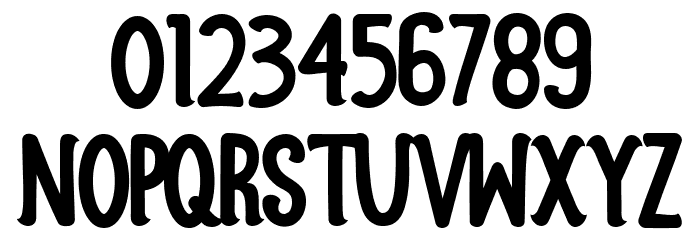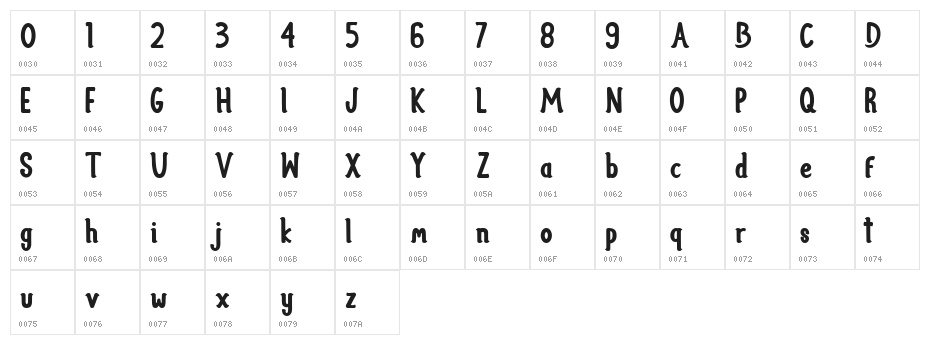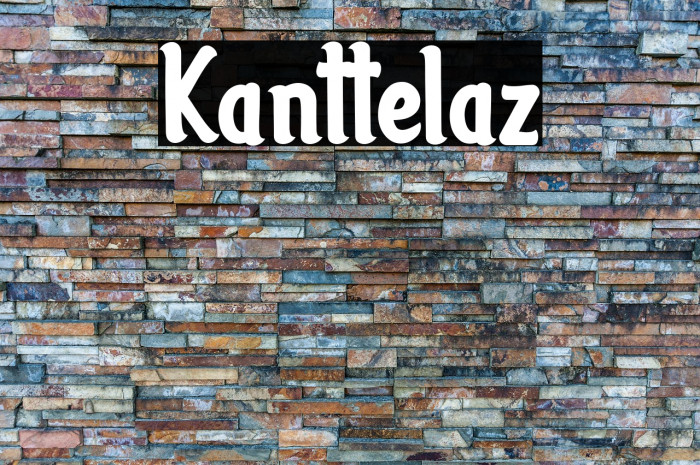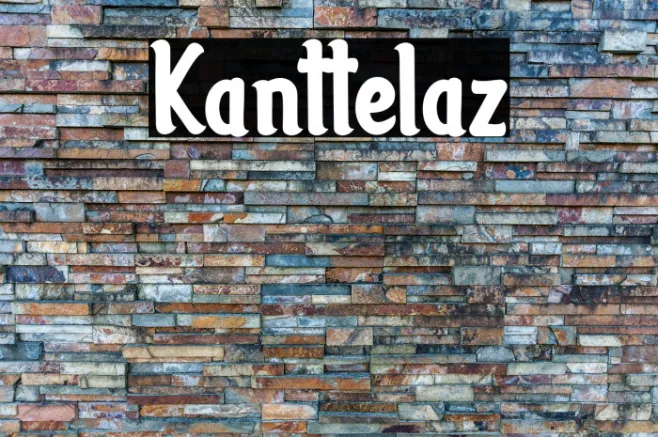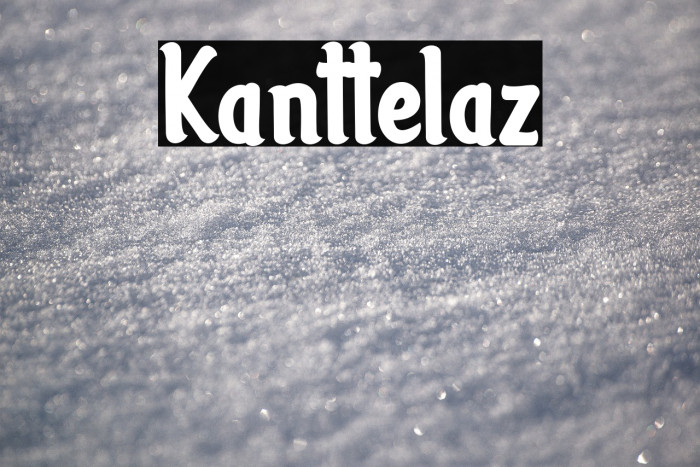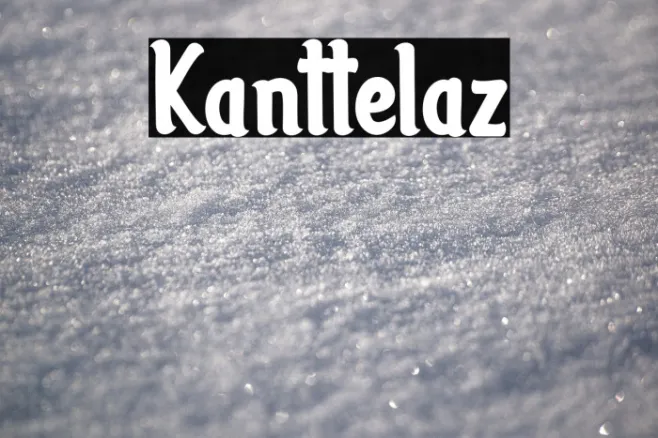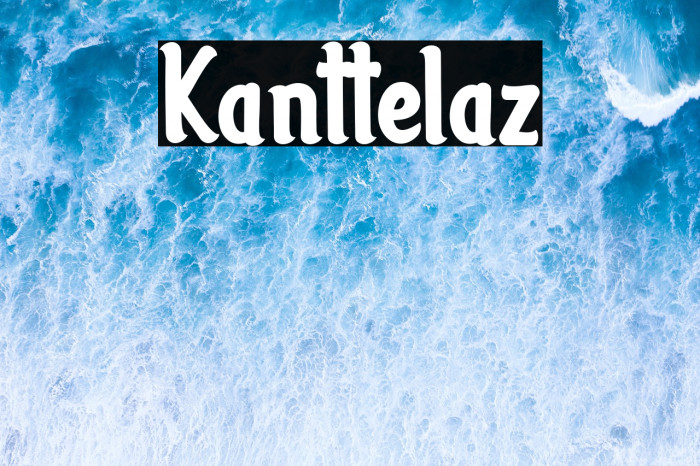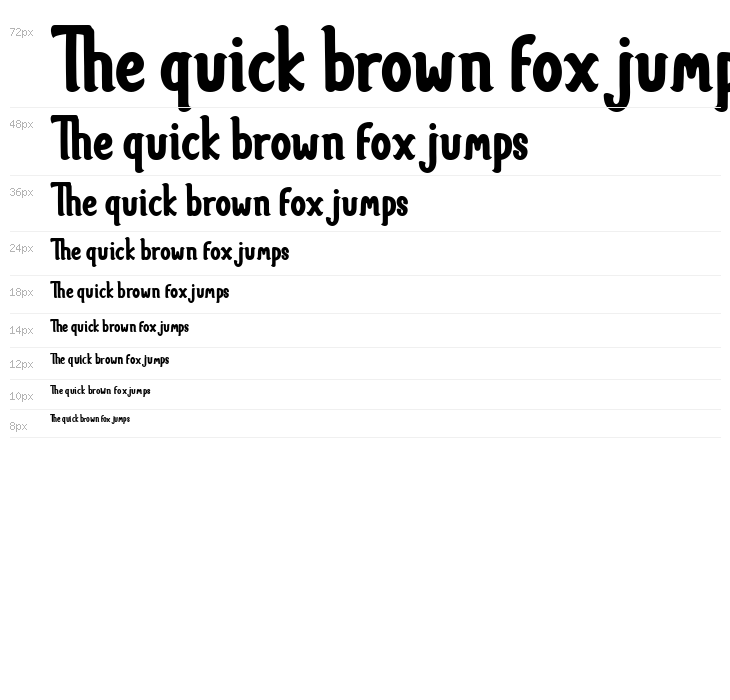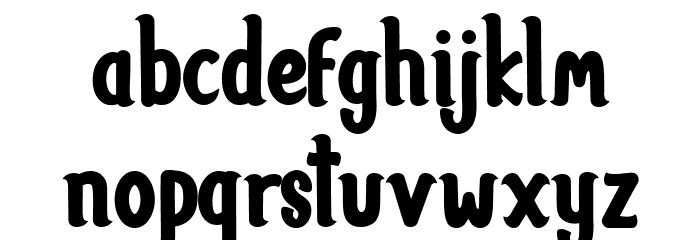
Kanttelaz Font
Kanttelaz Description
This font features a playful and bold style with a handwritten appearance. The characters are rounded and slightly irregular, giving them a whimsical and friendly look. The uppercase and lowercase letters maintain a consistent style, with the lowercase letters being slightly smaller and more compact. The numbers are clear and easy to read, matching the overall aesthetic of the letters. The special characters blend seamlessly with the rest of the font, maintaining the same playful and bold characteristics. This font is ideal for projects that require a fun and approachable feel, such as children's books, playful branding, or casual invitations.
Overall StylePlayful
Use CaseHeadlines, Logos, Invitations
Proposed ProjectsChildren's books, playful branding, casual invitations, greeting cards.